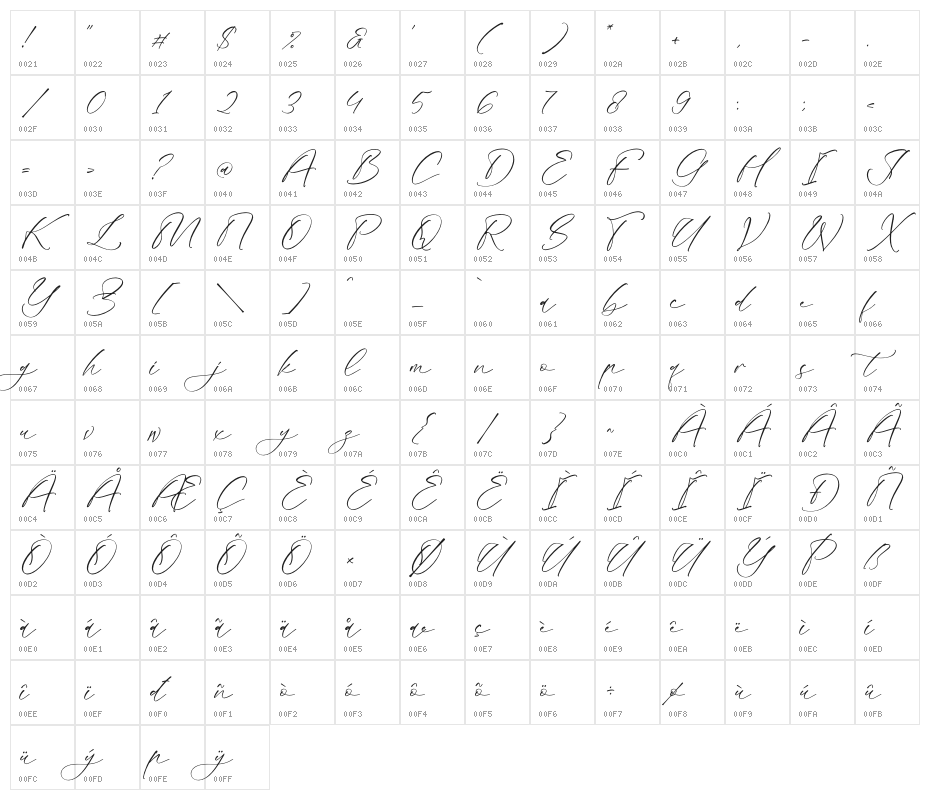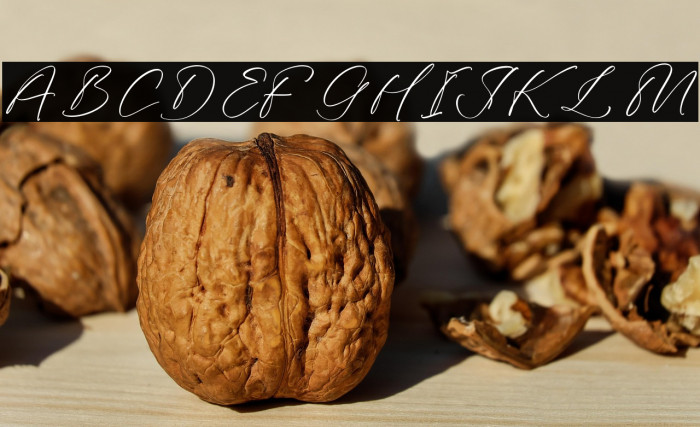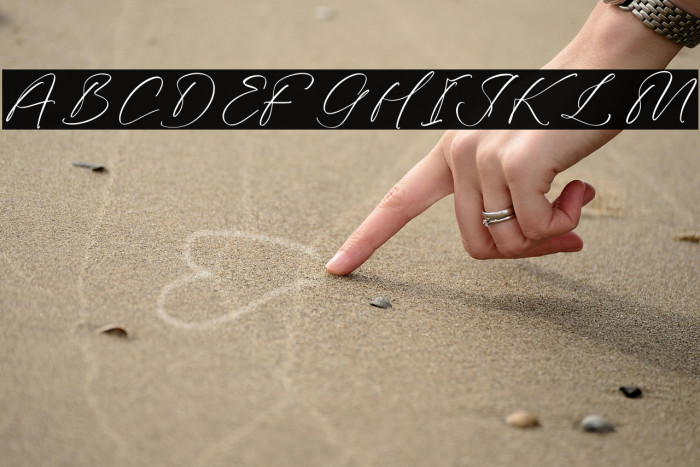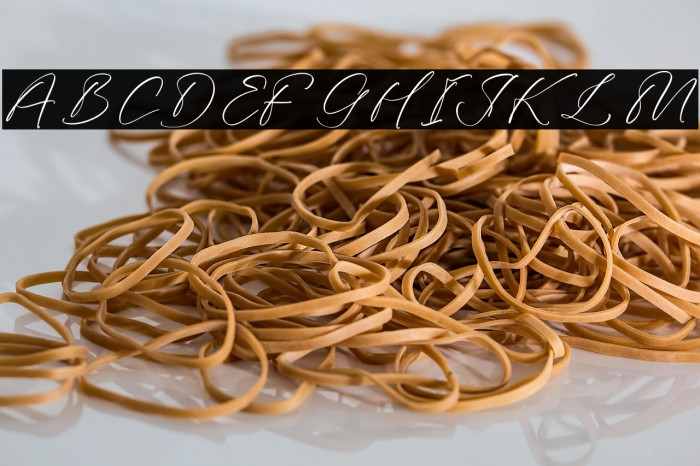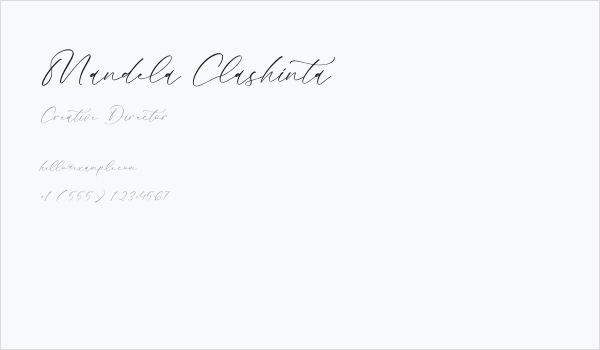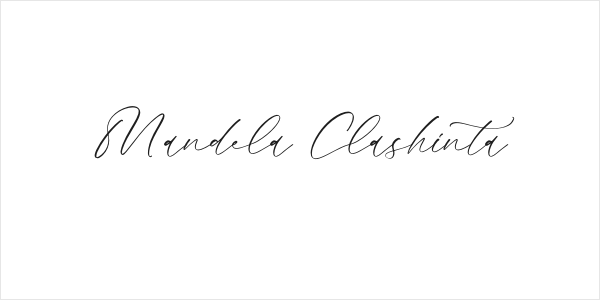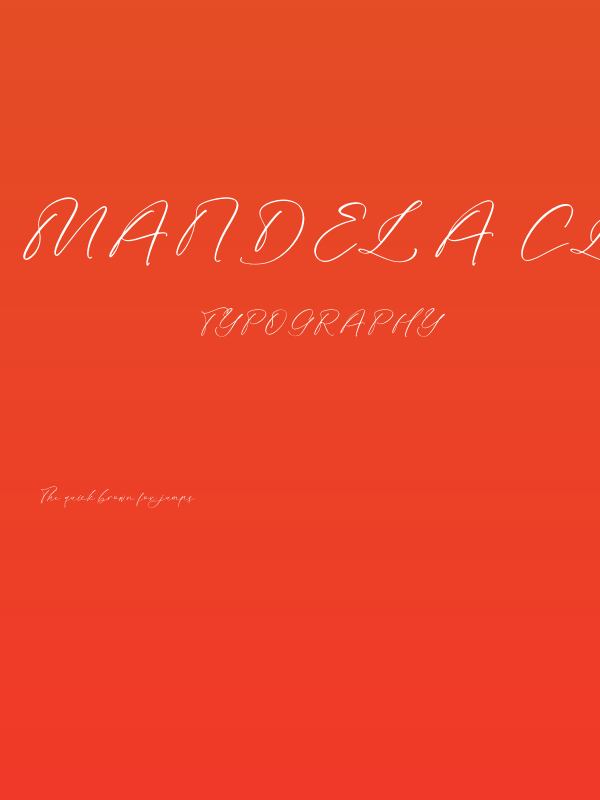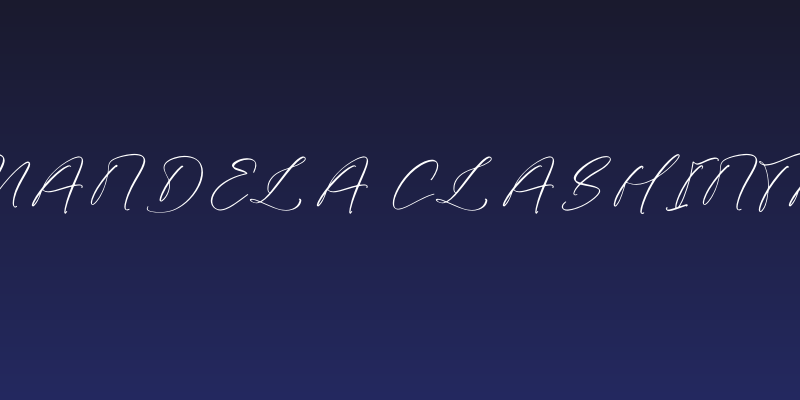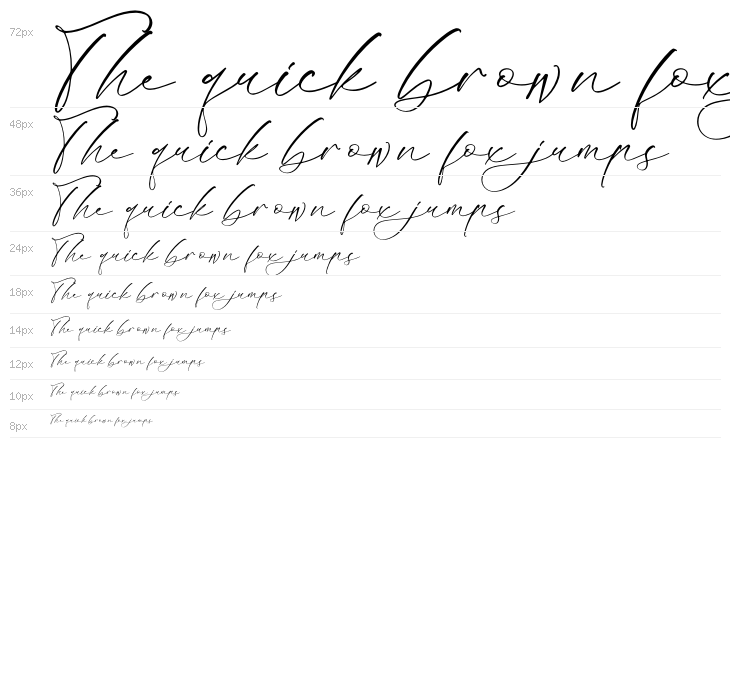
Mandela Clashinta Font
Mandela Clashinta Description
This elegant script font features flowing, interconnected letters that exude a sense of sophistication and grace. The uppercase letters are slightly more restrained, maintaining a consistent height, while the lowercase letters display a beautiful cursive style with sweeping ascenders and descenders. The numerals are distinct yet harmonize well with the overall script style. Special characters are thoughtfully integrated, maintaining the font's cohesive aesthetic. The font's delicate strokes and fluid lines make it ideal for projects that require a touch of elegance and refinement.
| Proposed Projects | Ideal for wedding invitations, elegant branding, personal stationery, and high-end product packaging. |